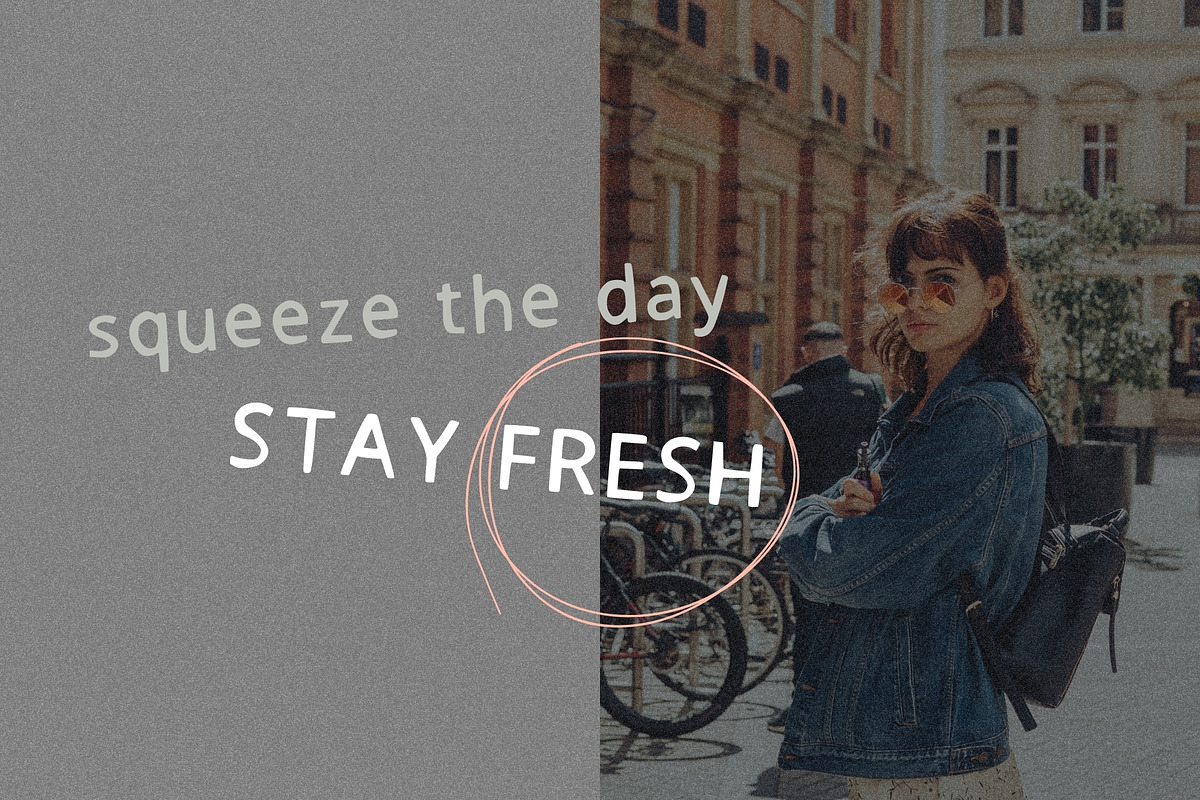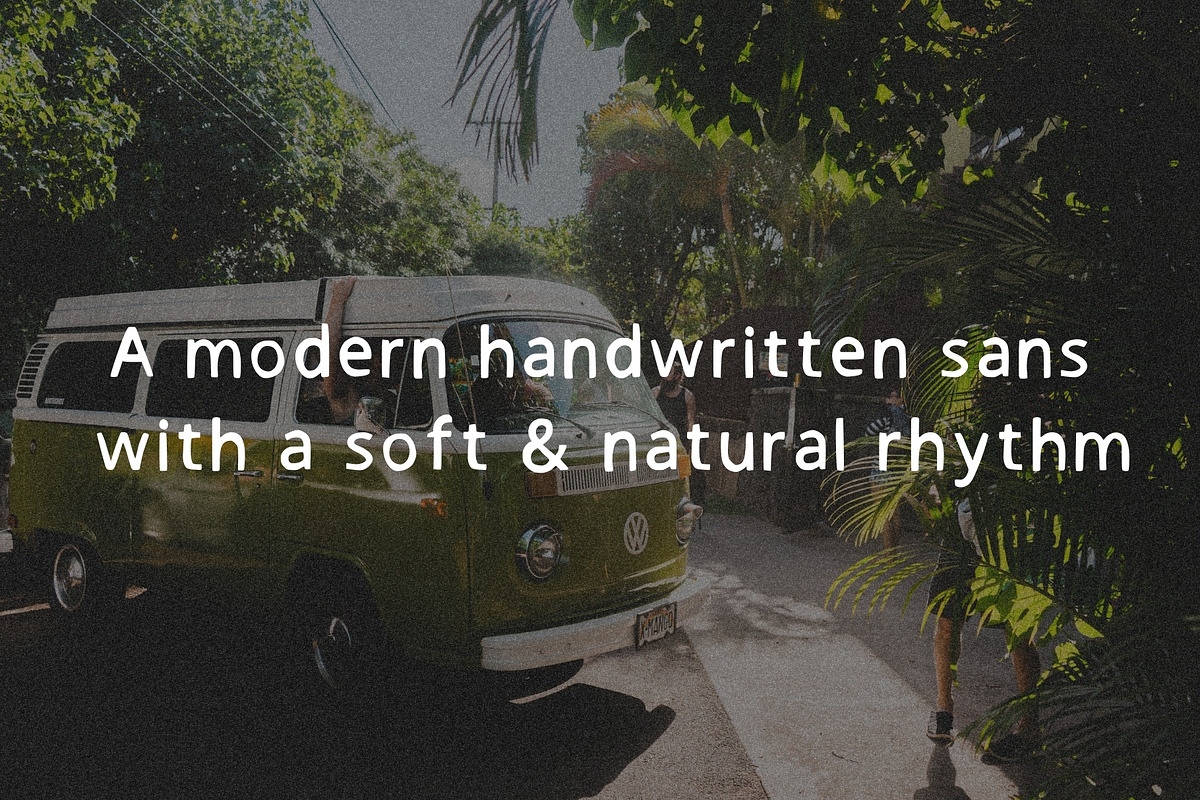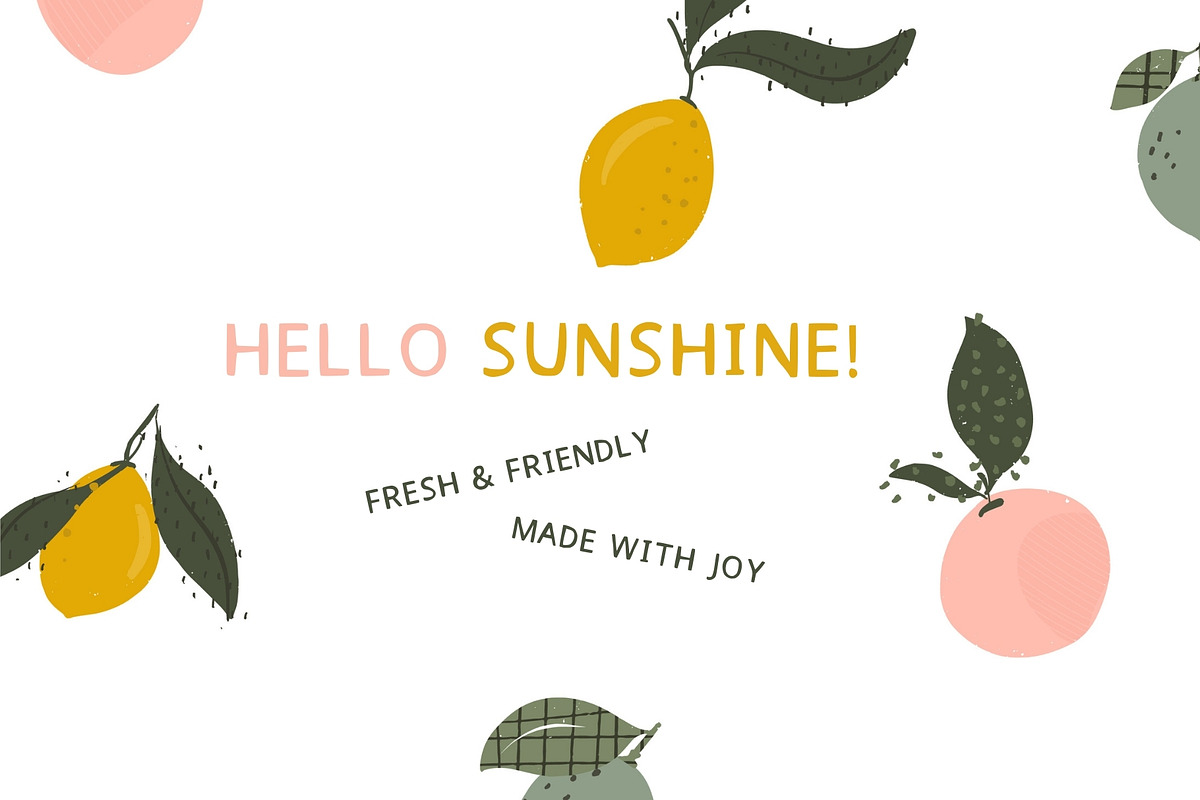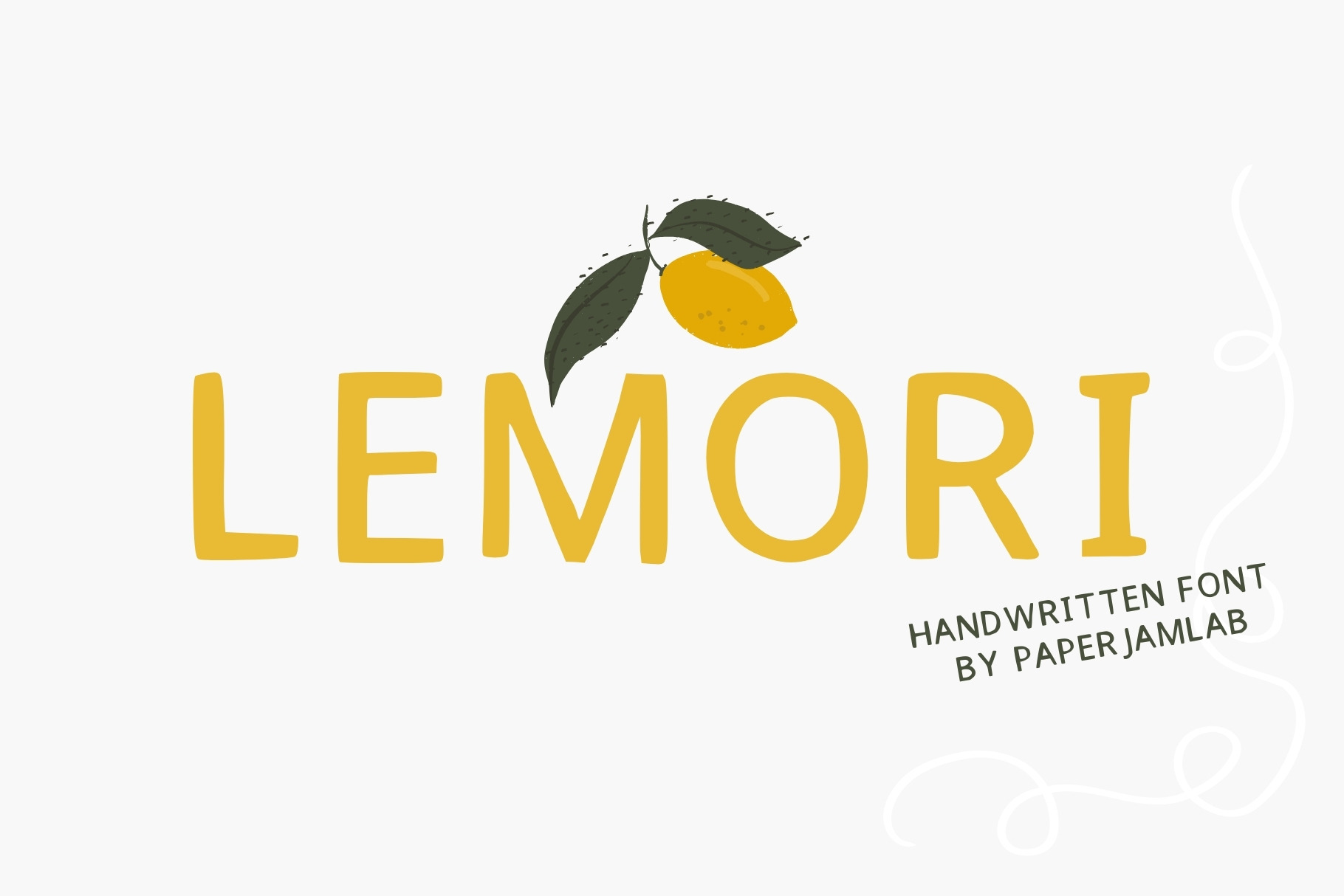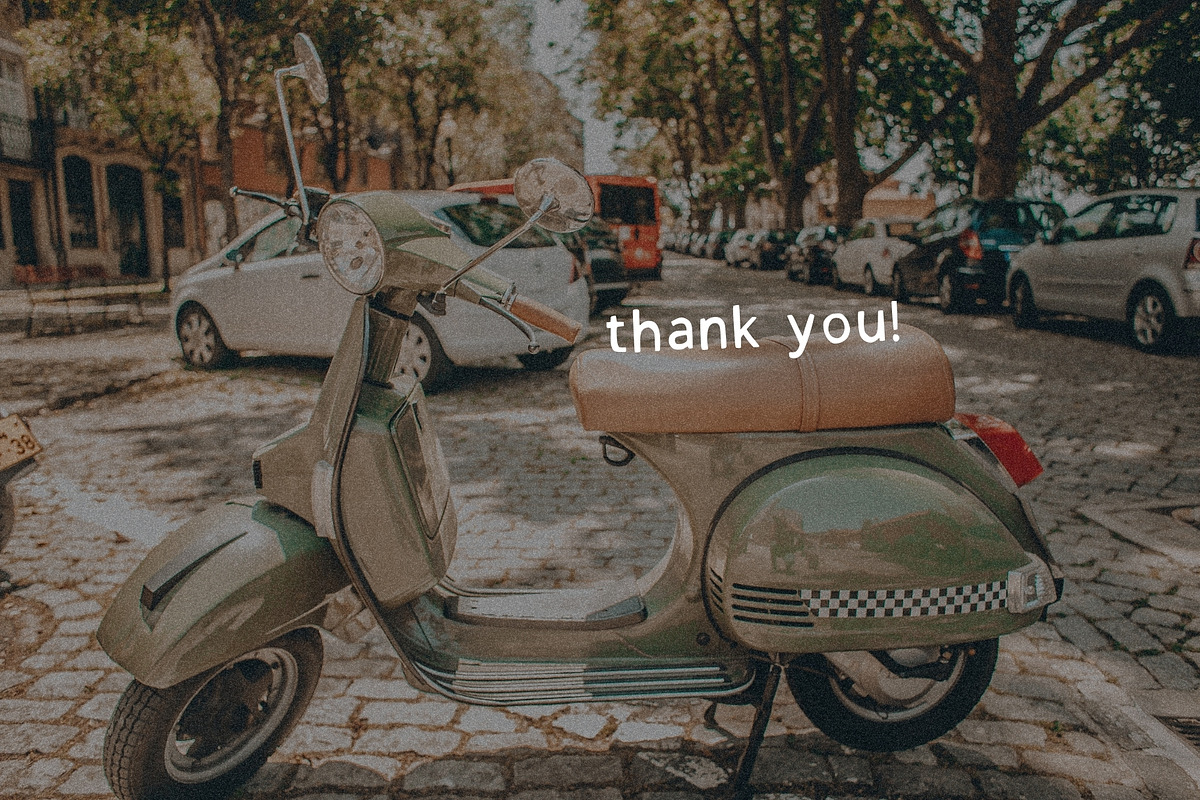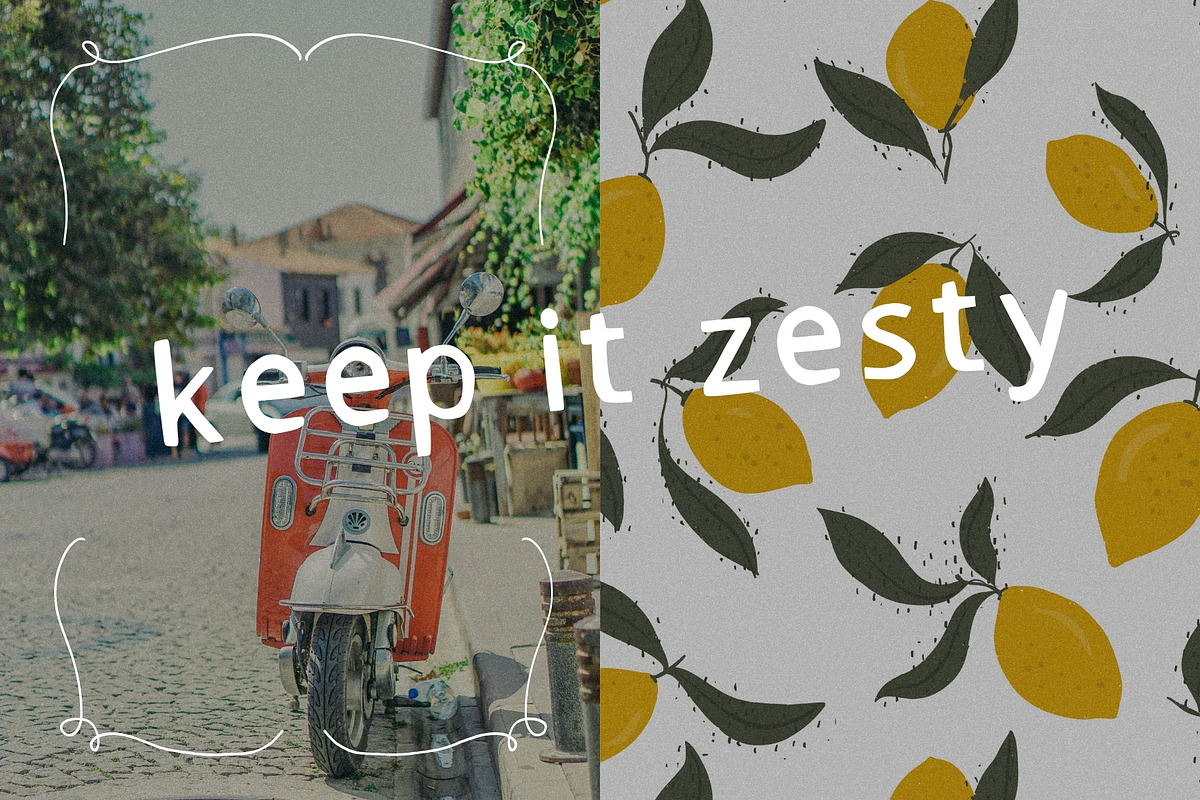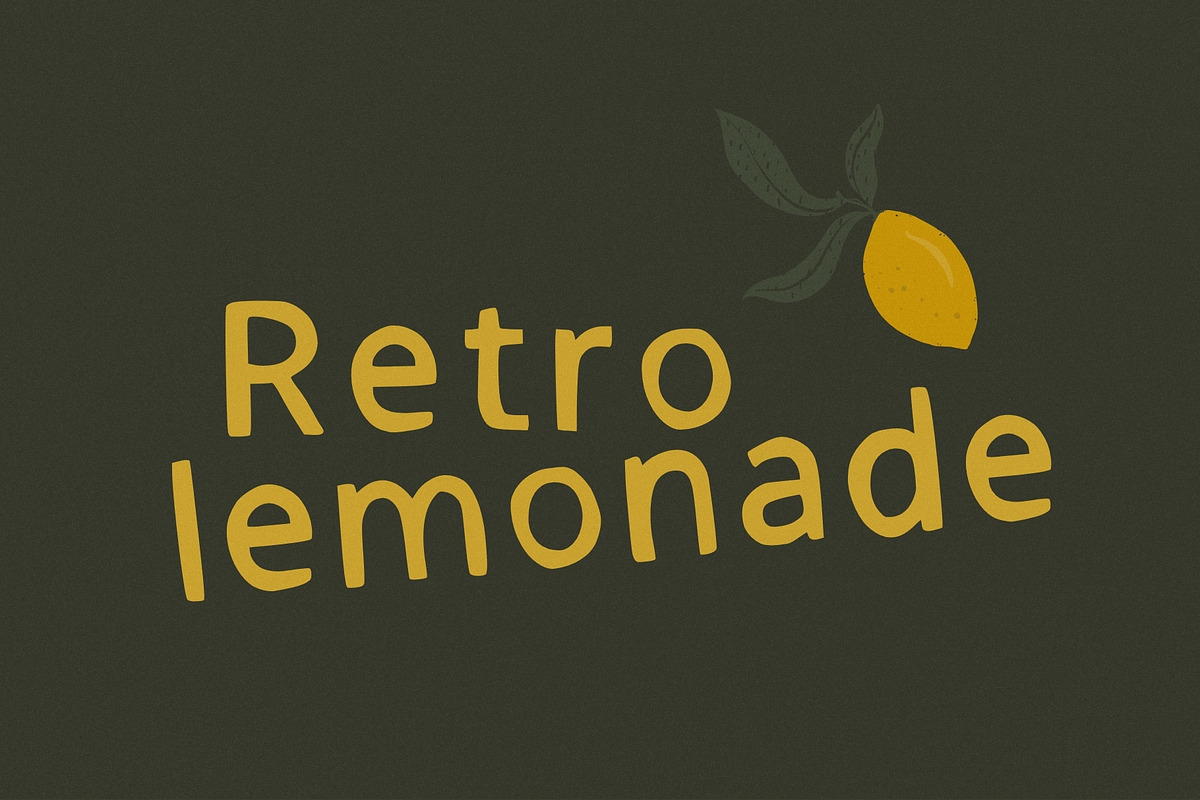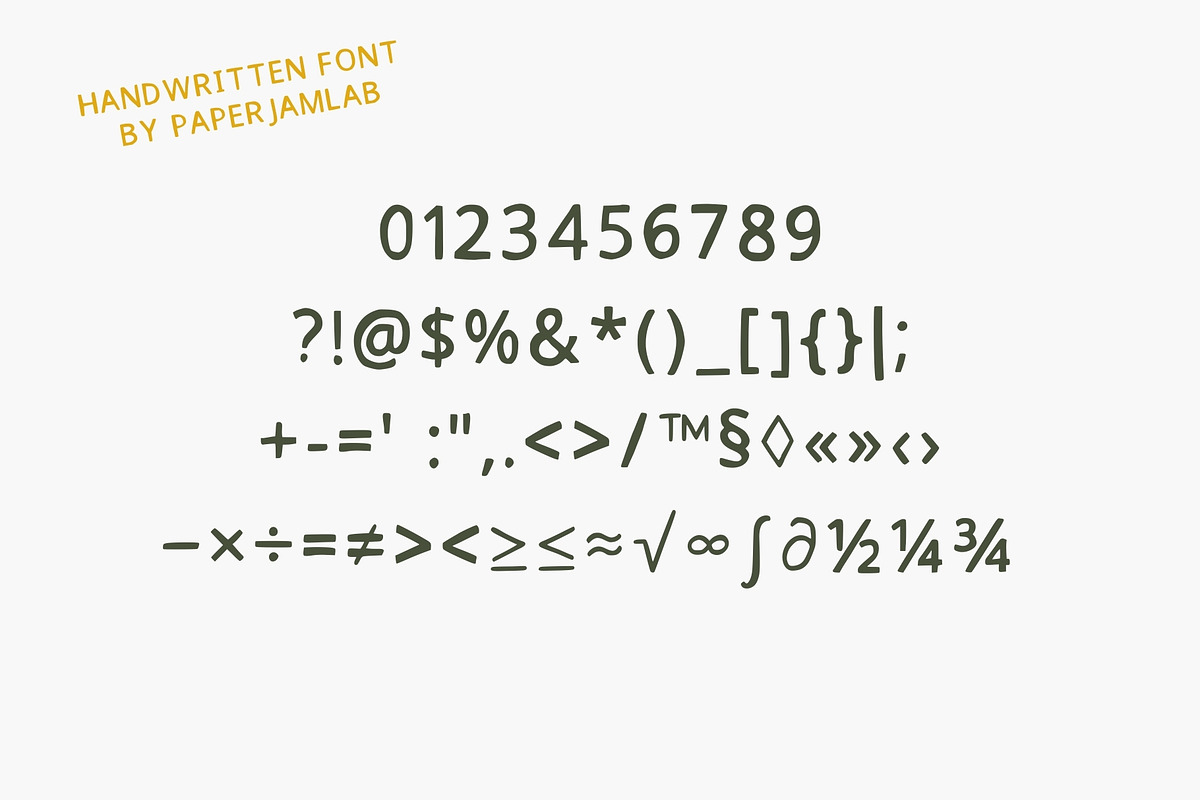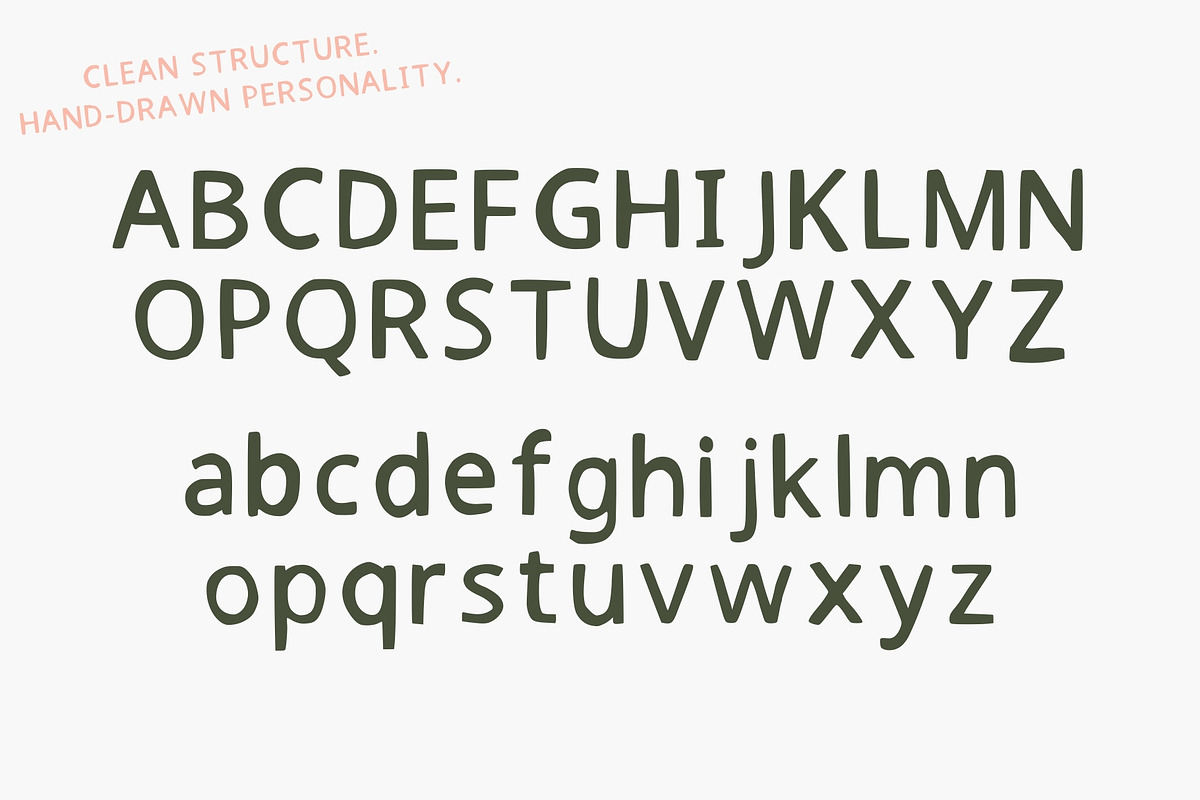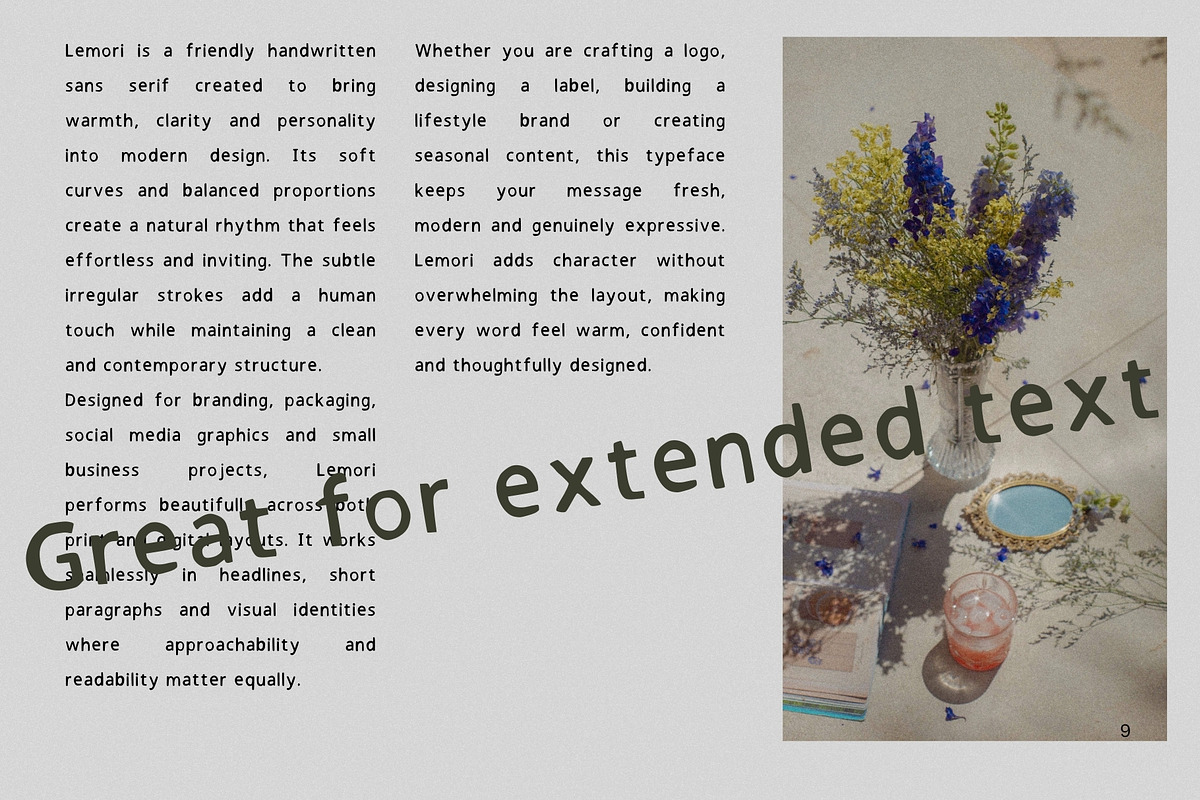
Lemori. Handwritten Font
Lemori – Friendly Handwritten Sans Serif Font is a modern hand-drawn sans serif with a soft, fresh and approachable personality. This friendly handwritten font blends clean sans serif structure with subtle irregular strokes, creating a natural and effortless look.
Lemori is perfect for branding, logo design, packaging, social media graphics, children’s design, stationery, posters, book covers, labels and small business branding. Its casual handwritten style makes it ideal for handmade products, lifestyle brands and creative typography projects.
This modern sans serif font works beautifully in headlines, quotes and short text while maintaining excellent readability. Lemori adds warmth and character without losing clarity — making it a versatile font for both digital and print design.
If you’re looking for a friendly handwritten sans serif font with a fresh and contemporary feel, Lemori is a perfect choice.
\-Uppercase & Lowercase
\-Numbers & Punctuation
\-Multilingual Support